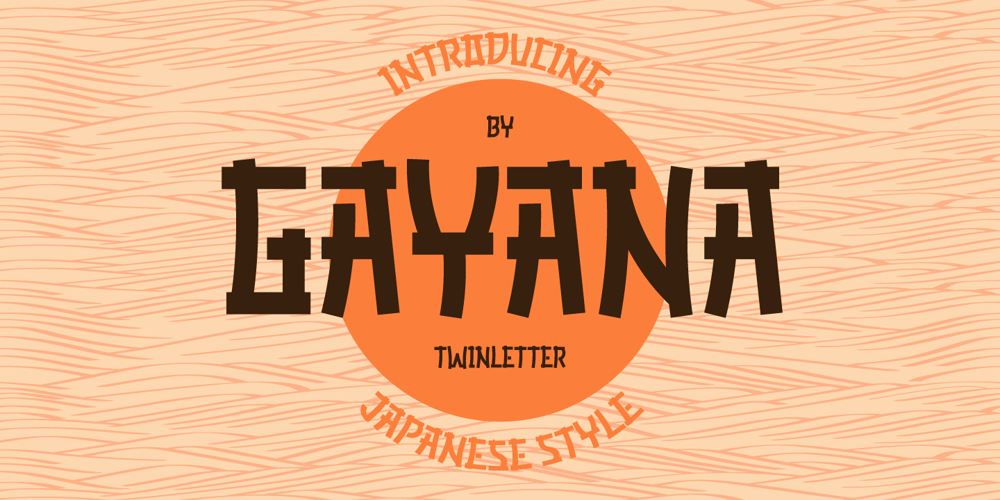
Gayana Faux Font Family was designed by Rozikan and published by Twinletter. Gayana Faux contains 1 styles and family package options. GAYANA is a faux-Japanese font featuring traditional Japanese features.By incorporating traditional Japanese culture and style into this typeface, your project will be unique, easy to comprehend and recall by a large number of people, ensuring that the great opportunity will be entirely yours. Your project must be unique, exquisite, and opulent!Logotypes, food banners, branding, brochure, posters, movie titles, book titles, quotes, and more may all benefit from this font.Of course, using this font in your various design projects will make them excellent and outstanding; many viewers are drawn to the striking and unusual graphic display.Start utilizing this typeface in your projects to make them stand out.